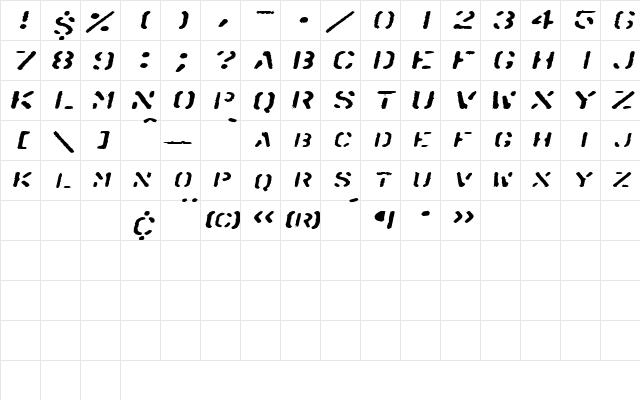
SprayStencilExtended Oblique
Design Context for SprayStencilExtended Typeface
SprayStencilExtended borrows the utilitarian aesthetic of stencil lettering, with its characteristic cutaways and no-frills construction lending an industrial edge. The dynamic lean of this cut emphasises speed and emphasis in any layout.
Ideal for industrial branding, streetwear, military-adjacent aesthetics, and urban signage projects.
Pro Tip: Pair SprayStencilExtended with raw, utilitarian design elements — exposed concrete textures, flat colour, and minimal ornamentation suit it well.